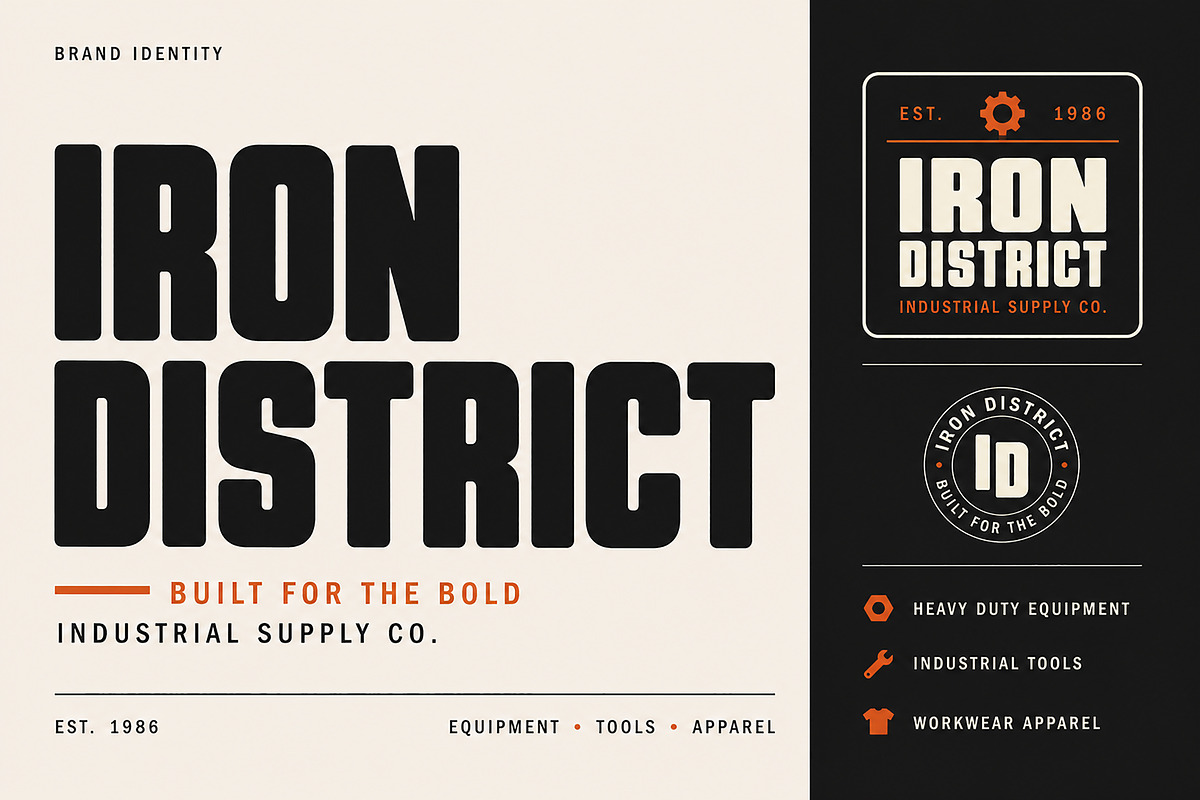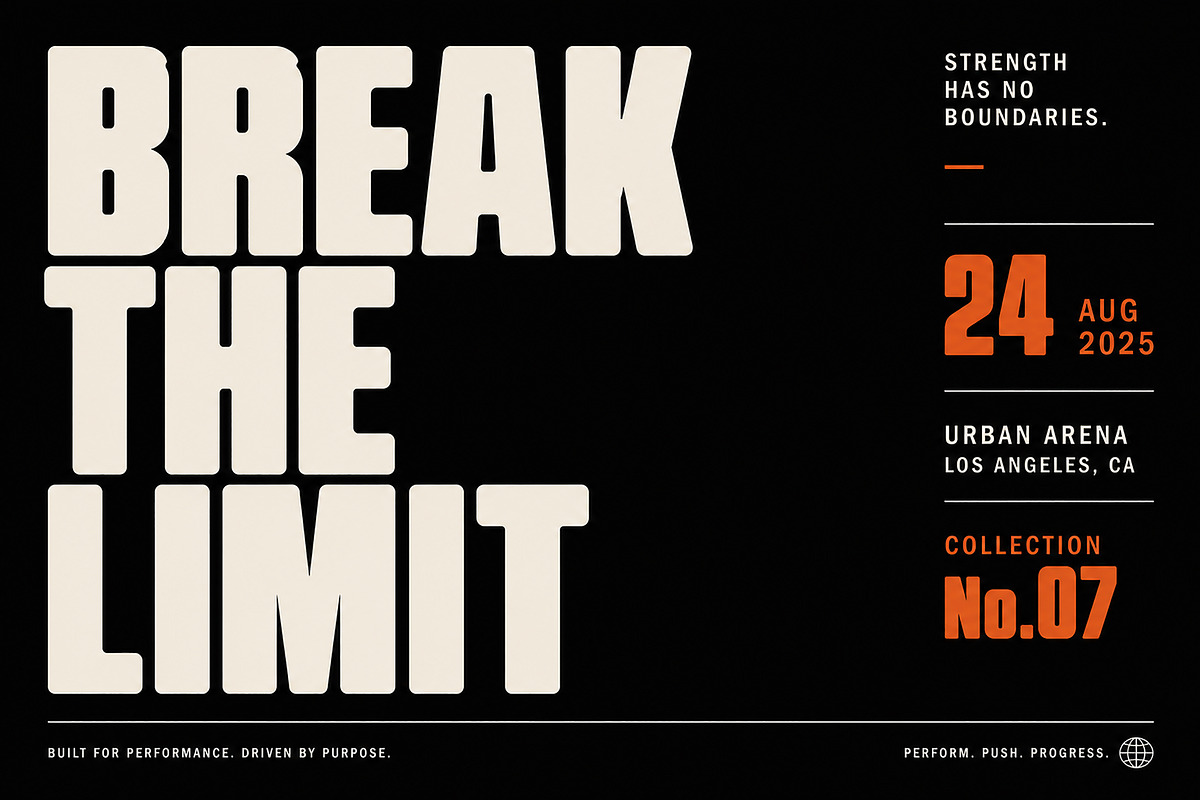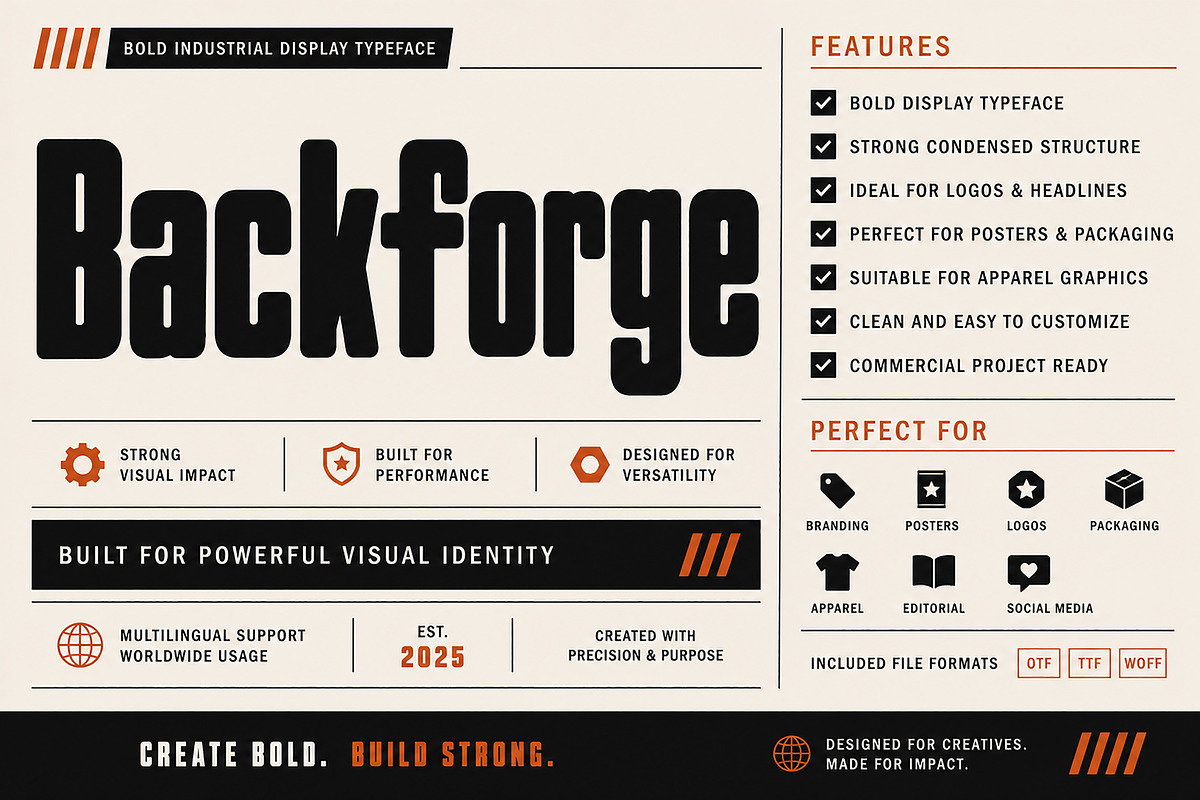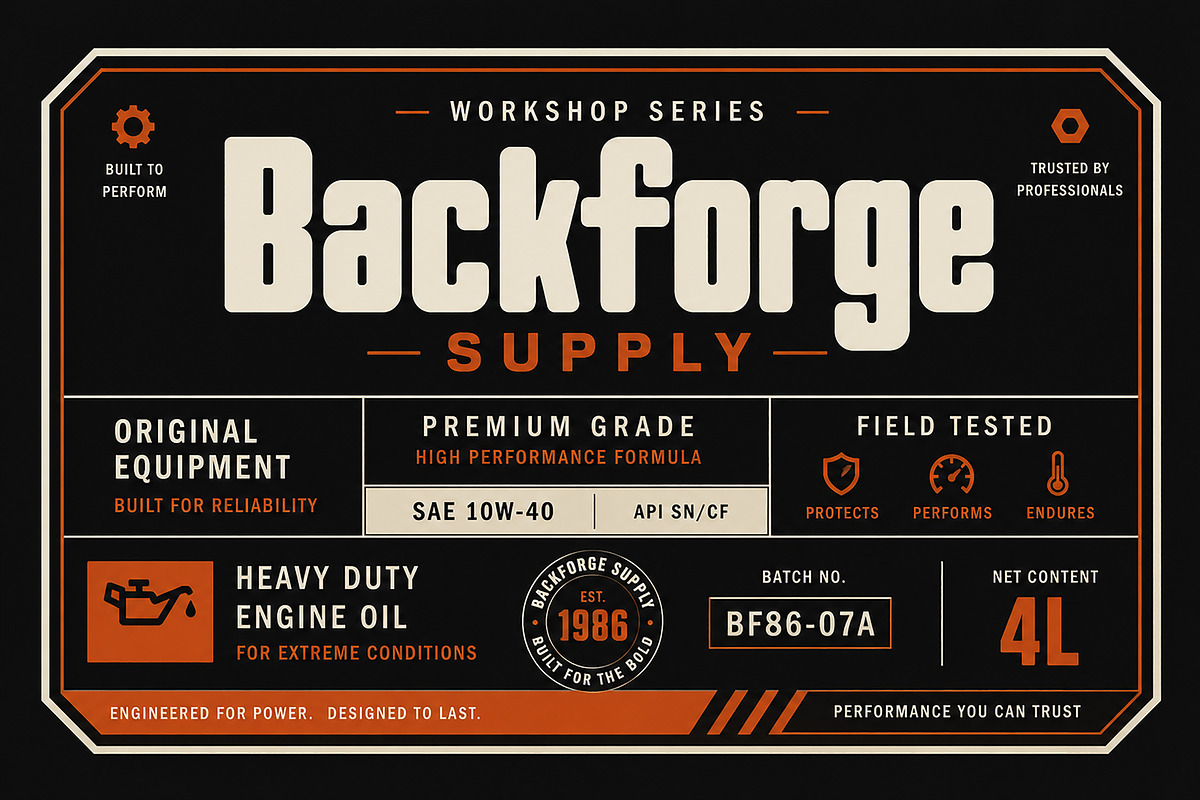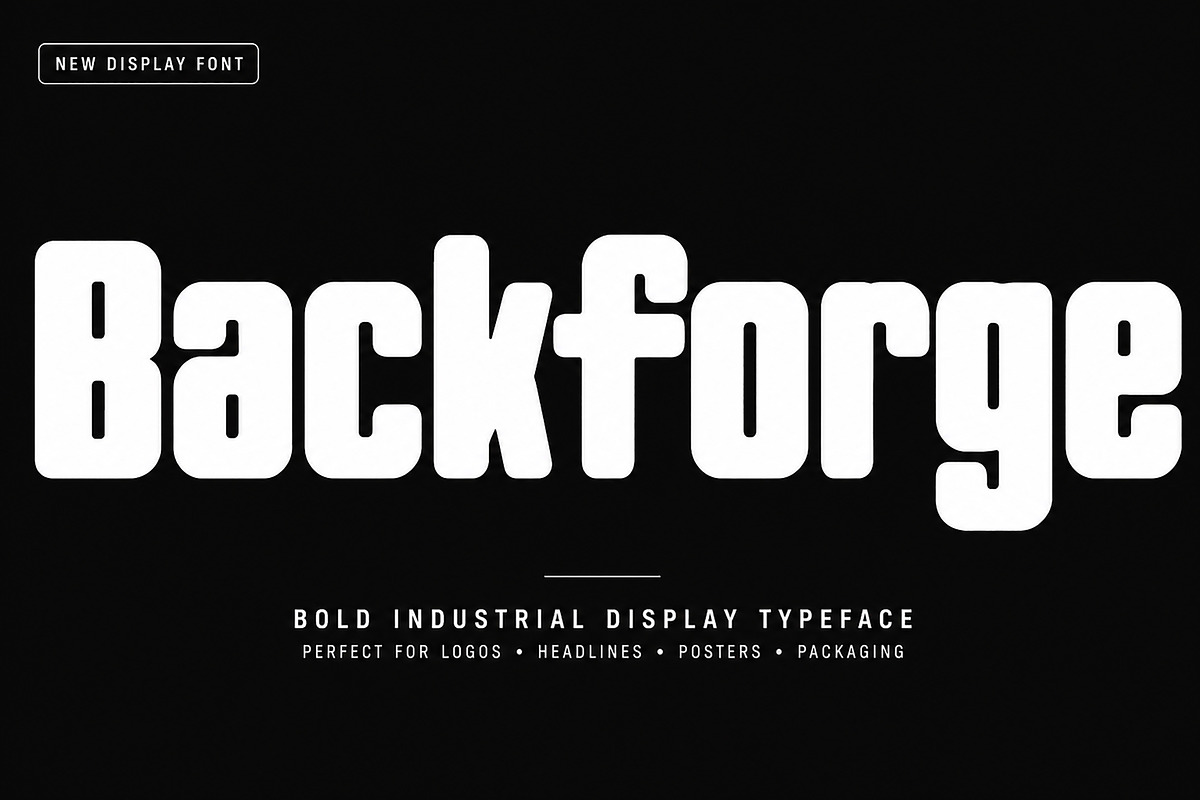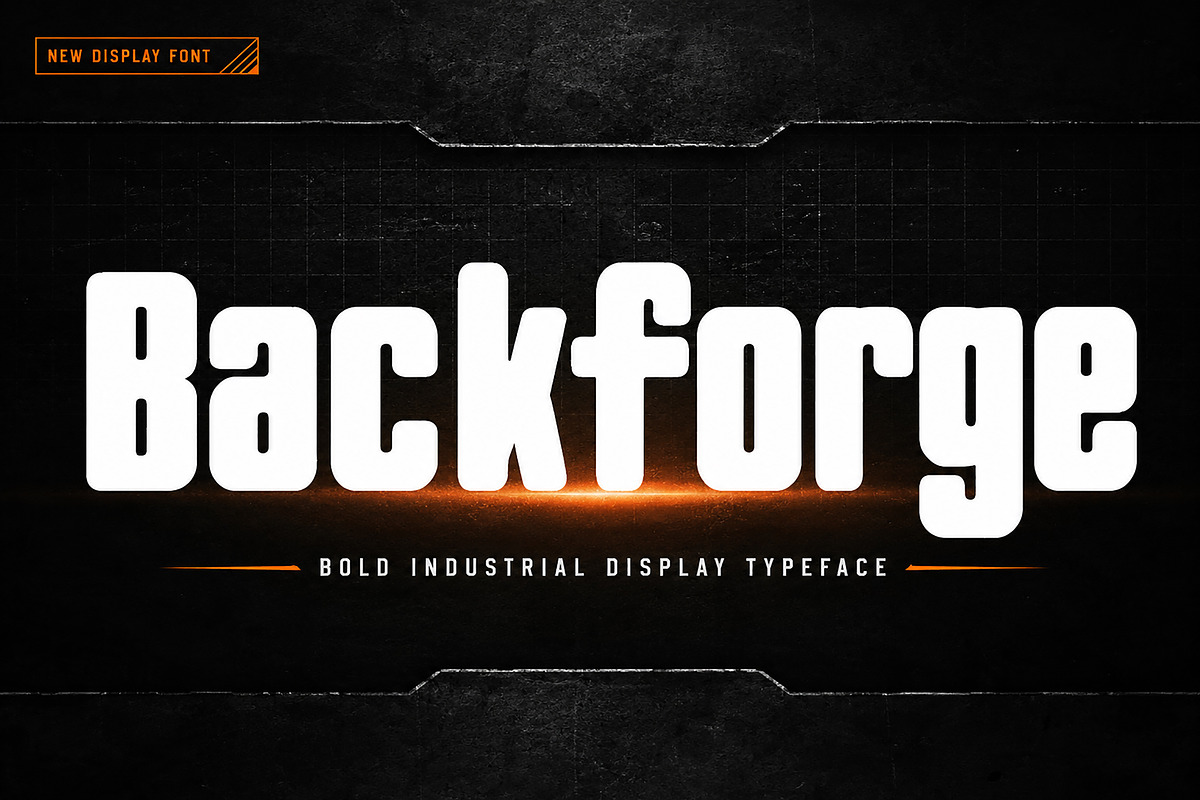
Backforge
Backforge is a bold industrial display typeface designed to make a powerful first impression. With its strong condensed structure, clean geometric shapes, and confident personality, Backforge is perfect for projects that demand bold visual impact.
Whether you're creating logos, posters, branding, packaging, apparel, or social media graphics, this typeface delivers a modern industrial aesthetic while remaining highly readable at large sizes.
Its solid letterforms make it an excellent choice for automotive brands, workwear, outdoor products, sports graphics, merchandise, editorial headlines, album covers, and premium packaging.
Designed for designers who want bold typography with a clean and professional appearance.
Logos
Branding
Posters
Headlines
Packaging
Apparel Design
Editorial Design
Album Covers
Automotive Branding
Industrial Branding
Outdoor Brands
Sports Graphics
Product Labels
Bold Display Typeface
Strong Condensed Structure
Clean & Modern Design
High Visual Impact
Basic Latin Characters